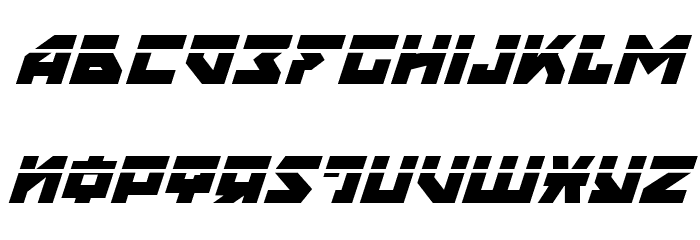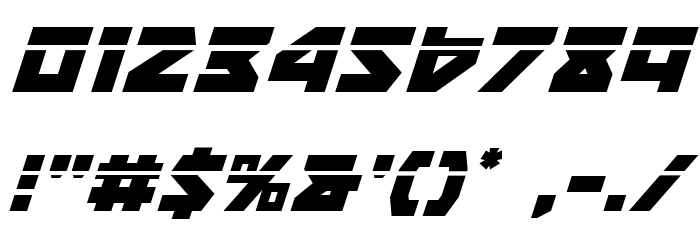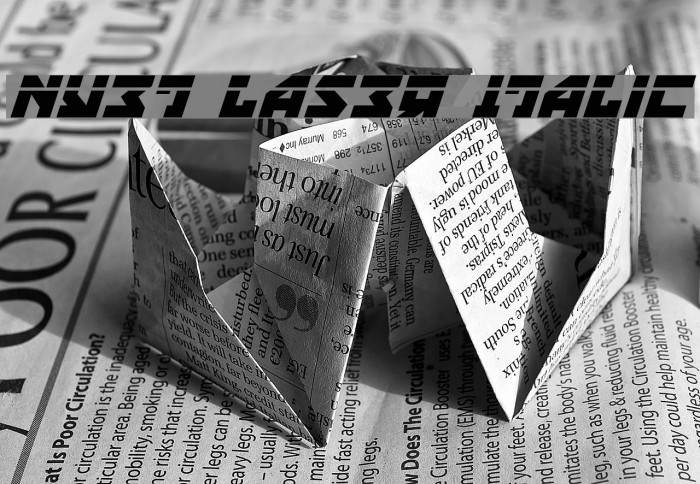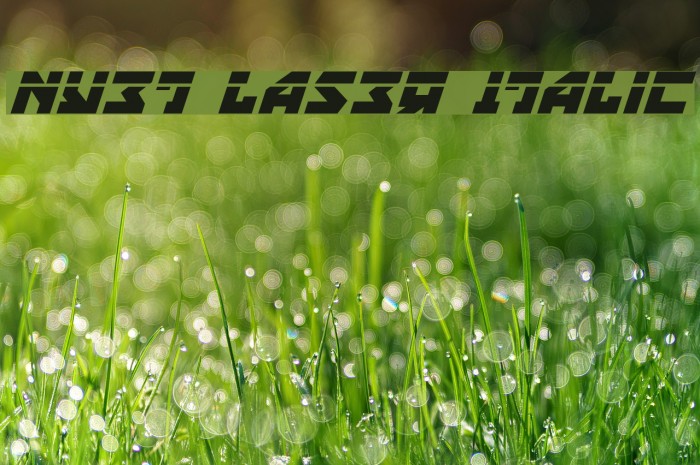
Nyet Laser Italic Font
This font features a bold, futuristic design with sharp, angular lines and a distinct italic slant. The characters are heavily stylized, giving them a dynamic and aggressive appearance. The uppercase and lowercase letters maintain a consistent geometric style, with each character exhibiting a unique, edgy form. The numbers and special characters follow the same aesthetic, ensuring a cohesive look across all glyphs. The font's strong visual impact makes it suitable for projects that require a modern and striking typeface.
A bold, futuristic font with sharp angles and an italic slant.
- Proposed Projects: Ideal for sci-fi themed designs, video game titles, posters, and branding that requires a modern, edgy look.